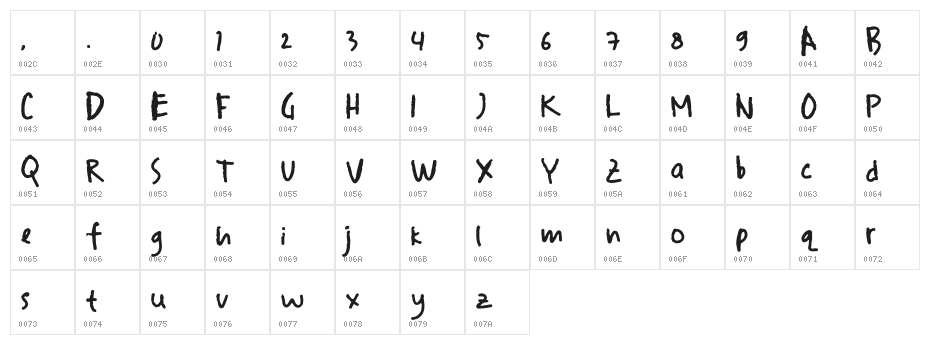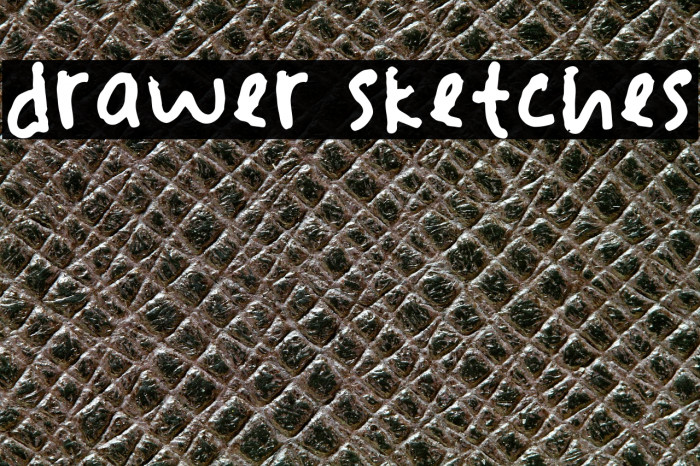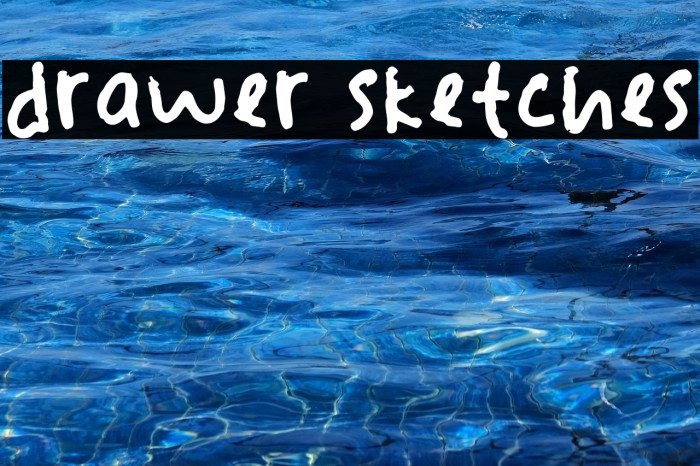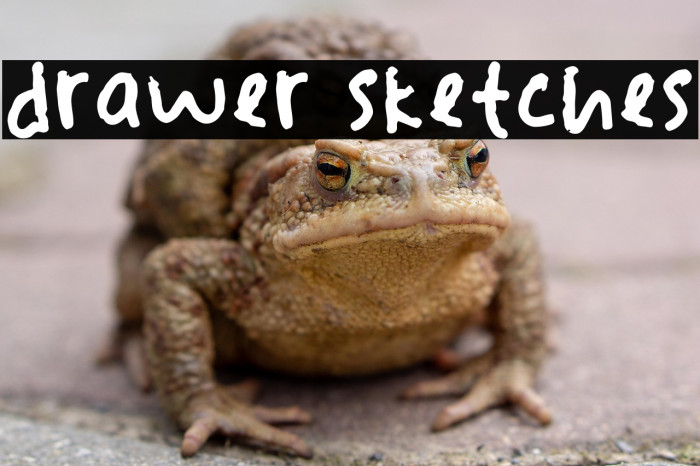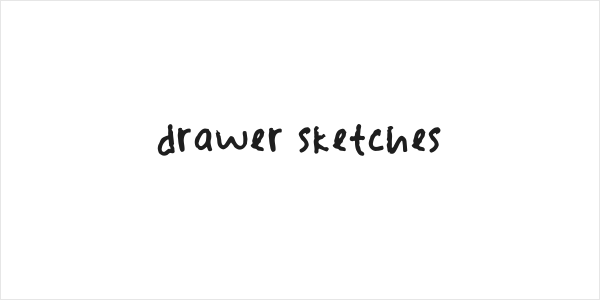
drawer sketches Font
drawer sketches Description
A handwritten, casual font with a playful and informal style. The strokes are uneven, giving it a natural and organic feel.
| Use Case | Informal text, Personal projects |
| Proposed Projects | Greeting cards, personal notes, informal branding. |